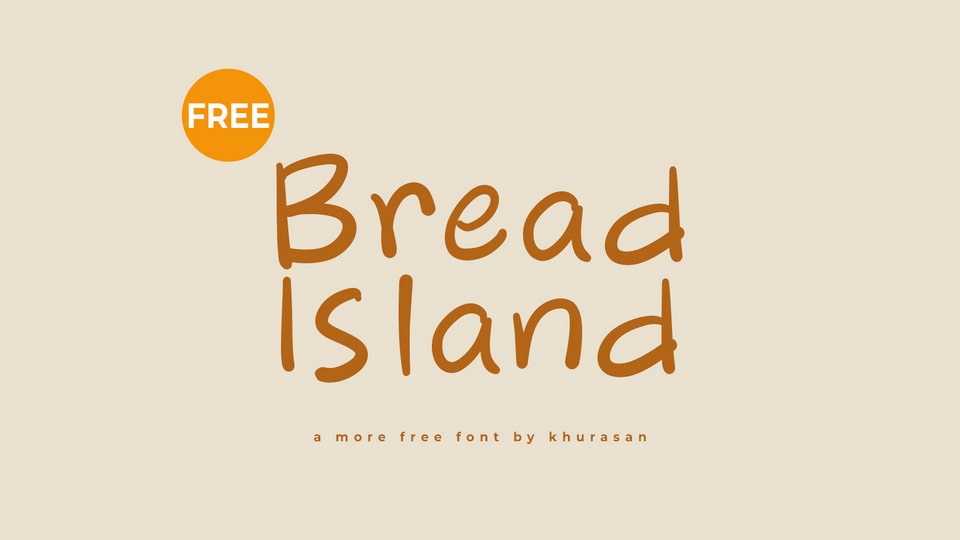
Download Bread Island font, a simple and organic hand-drawn typeface that captures the essence of natural beauty and effortless charm. It features smooth, flowing lines and gently varied letterforms, reflecting the spontaneity and authenticity of hand-drawn text.